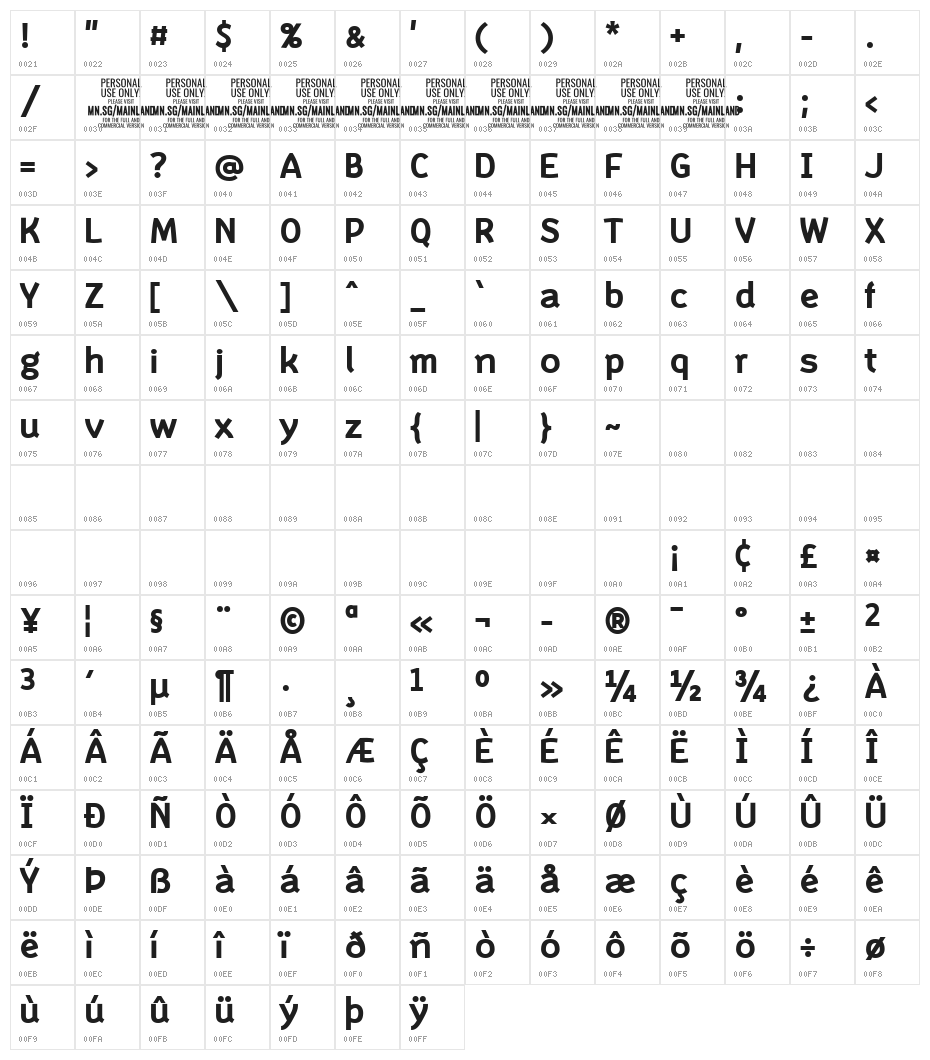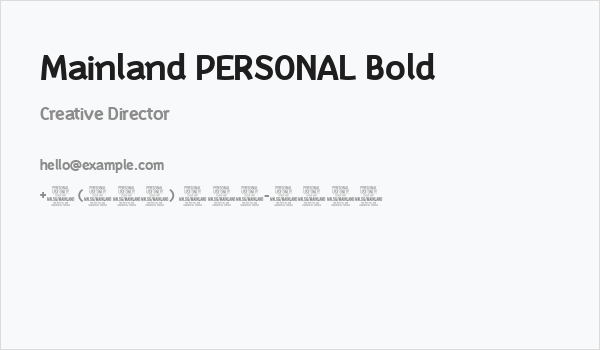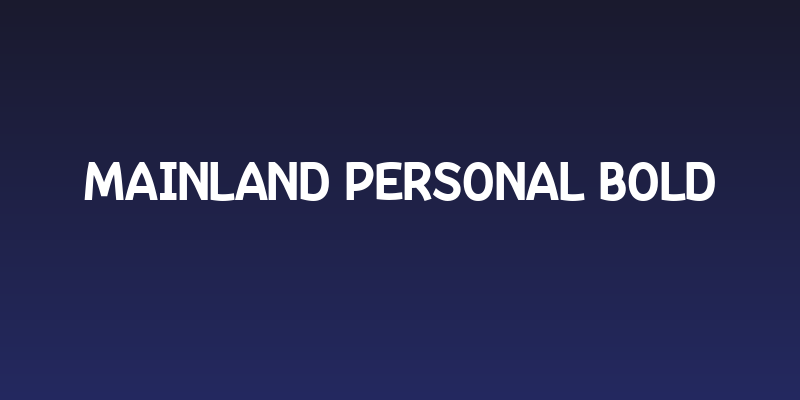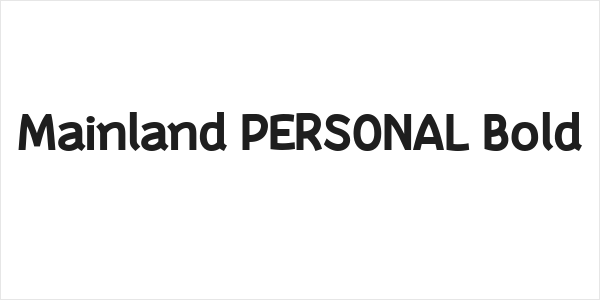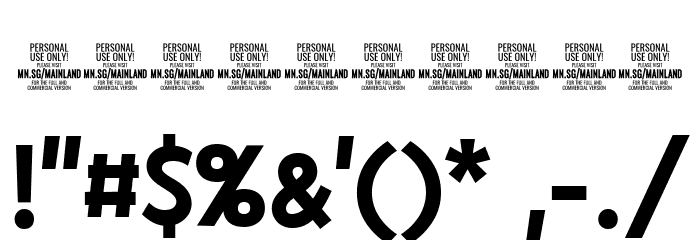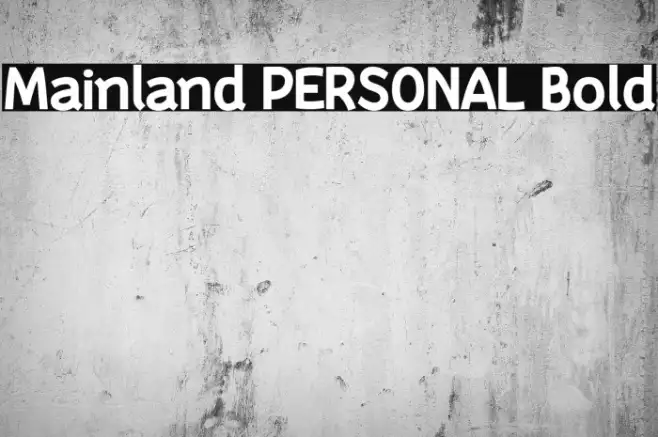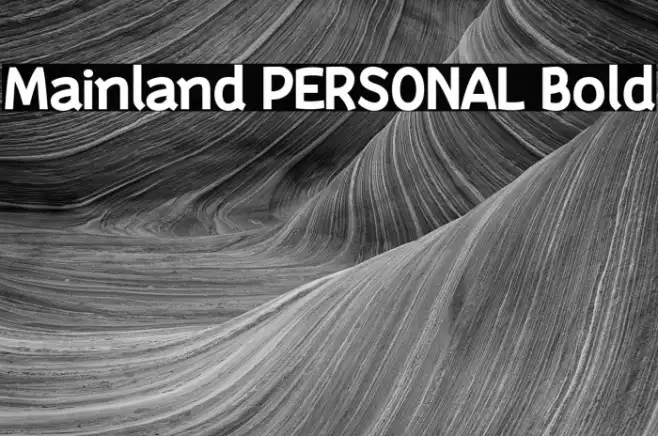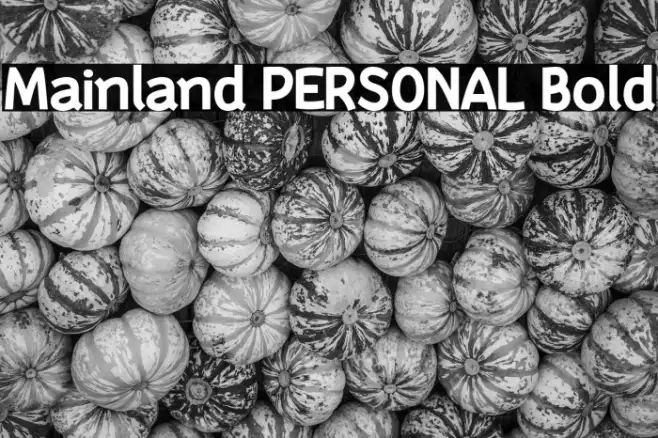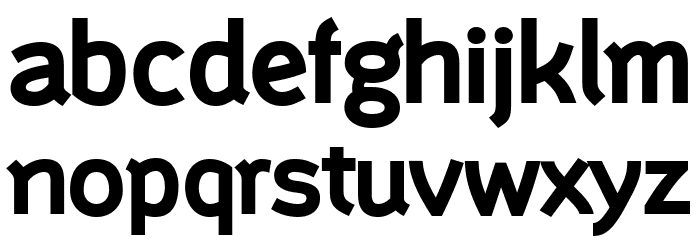
Mainland PERSONAL Bold Font
Mainland PERSONAL Bold Description
This font features a bold and assertive style with thick strokes and a strong presence. The characters are designed with a slight angularity, giving them a modern and dynamic look. The uppercase letters are particularly striking, with a uniform height and width that create a cohesive and balanced appearance. The lowercase letters maintain the boldness of the uppercase, with rounded edges that soften the overall look. The numerals and special characters are consistent with the font's bold style, ensuring readability and impact. This font is ideal for making a statement in any design project.
| Proposed Projects | Ideal for headlines, posters, branding, and any project requiring a bold statement. |